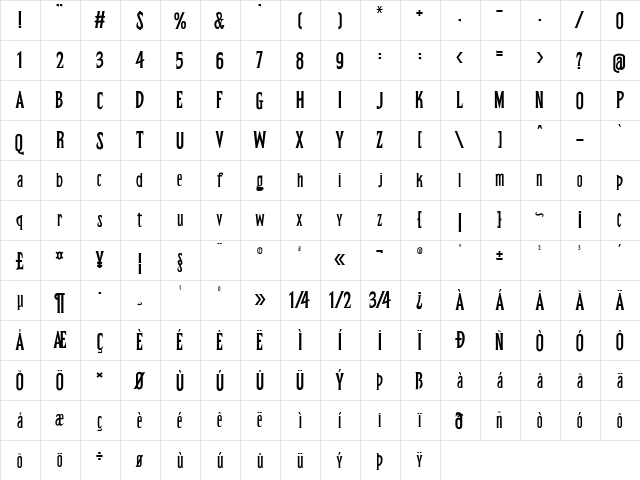
Grewmoon Demo Regular
| Foundry | Aprialdhi Adhiwarna Sugih |
| Designer | Aprialdhi Adhiwarna Sugih |
Design Context for Grewmoon Demo Typeface
Grewmoon Demo is a composed and adaptable typeface that performs quietly and consistently across a wide range of design contexts.